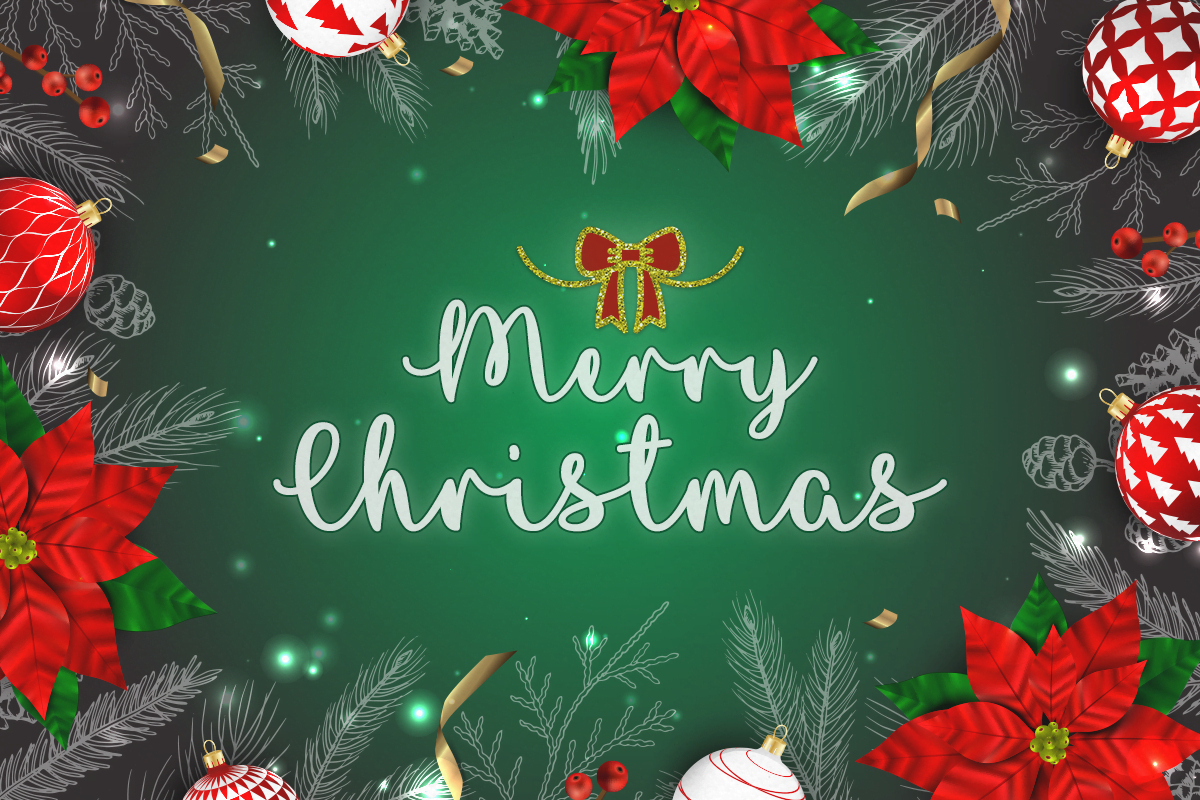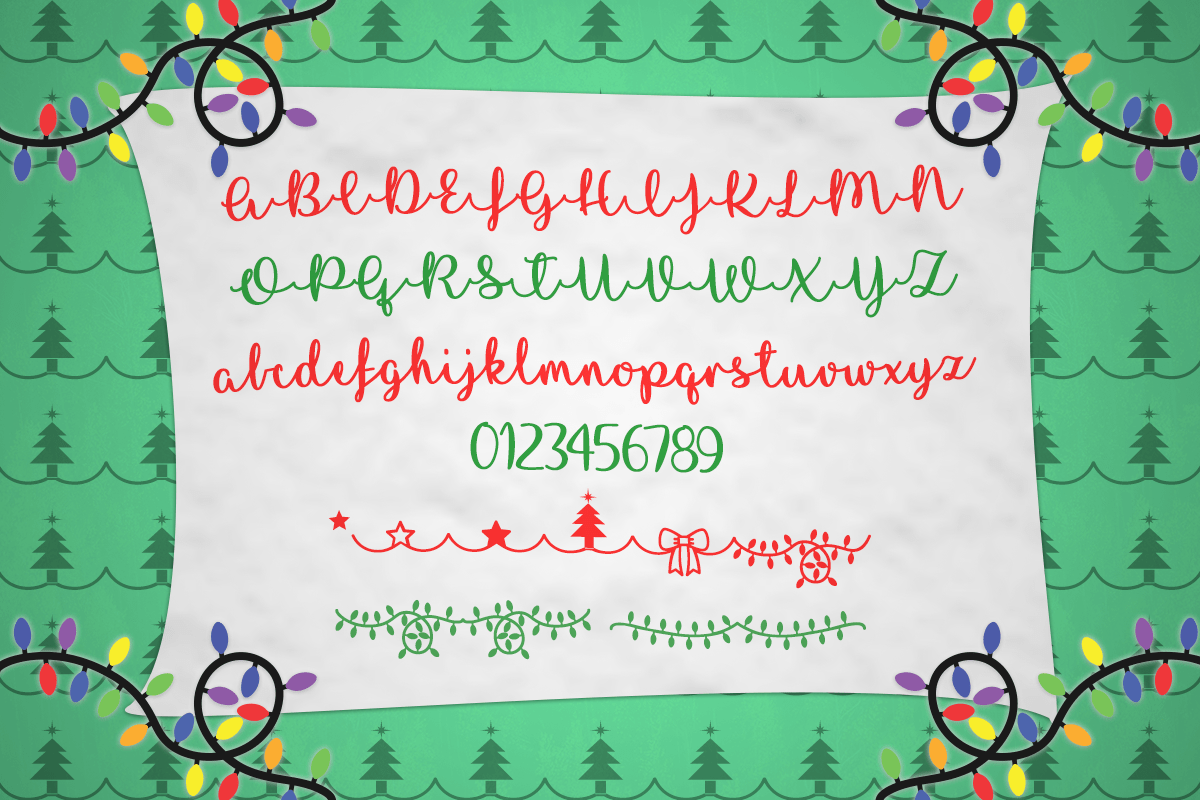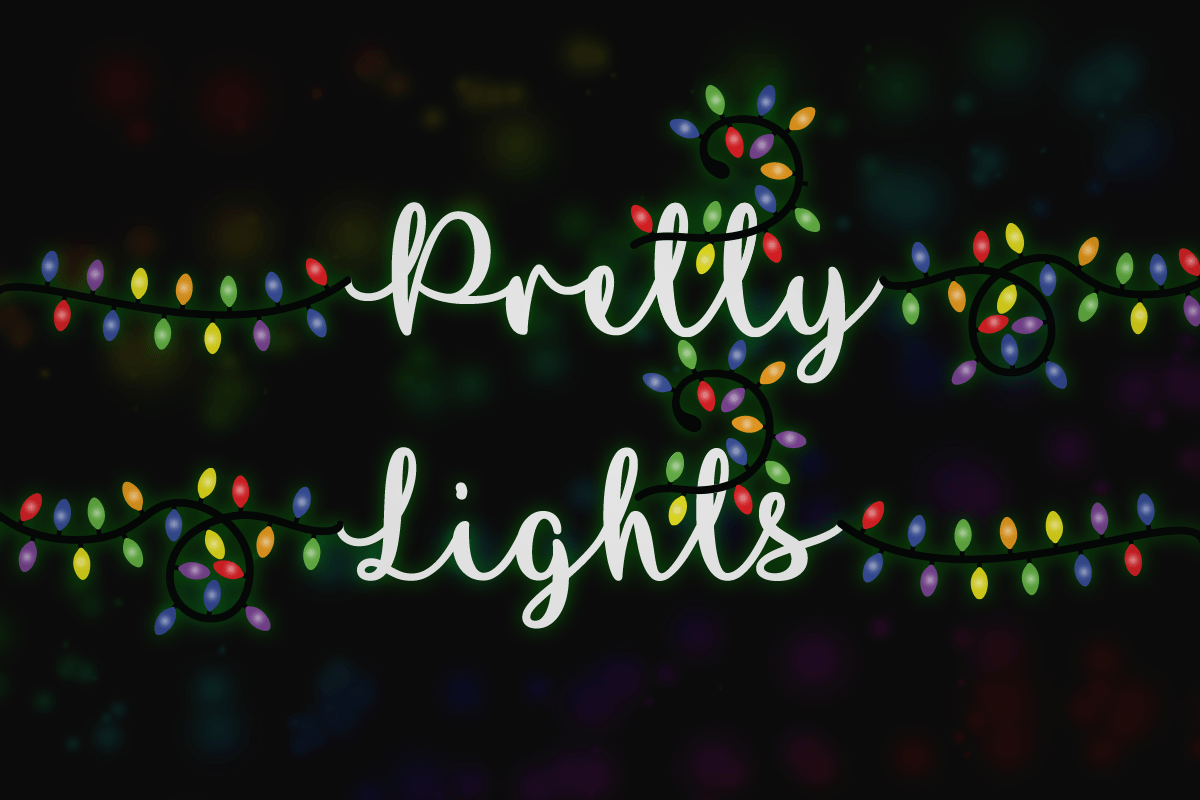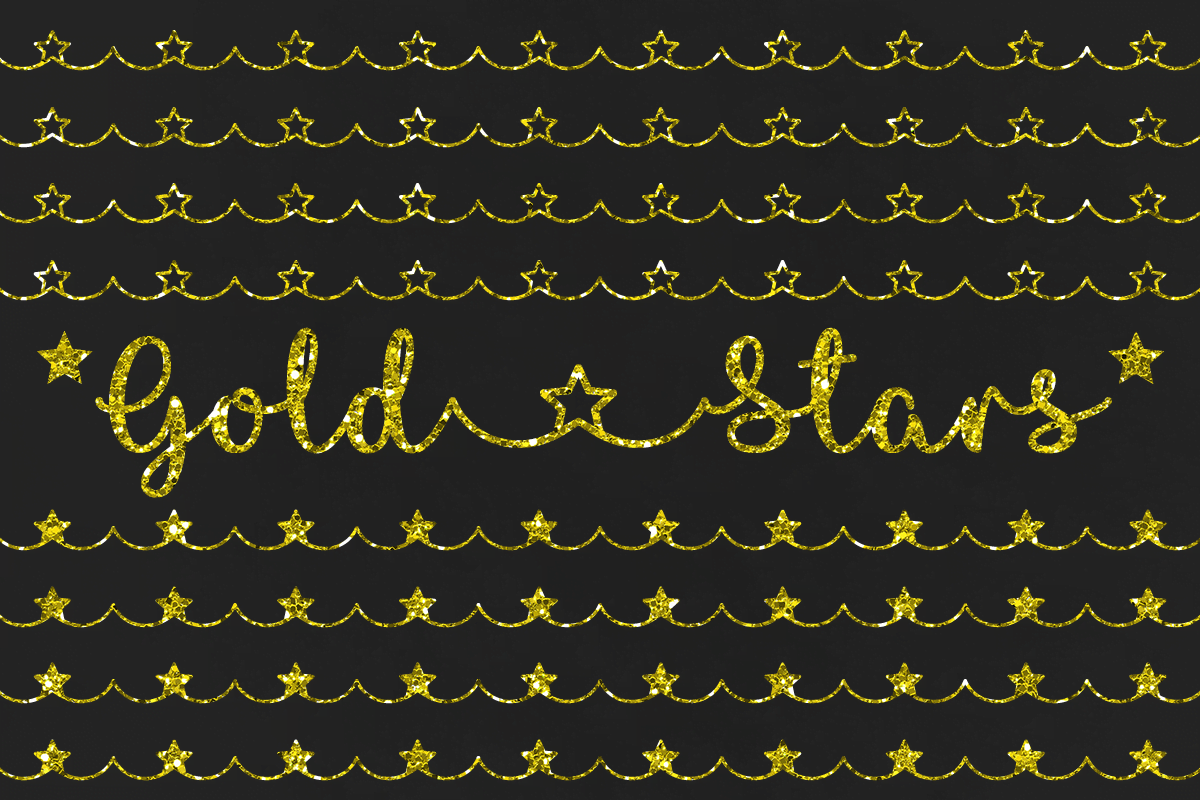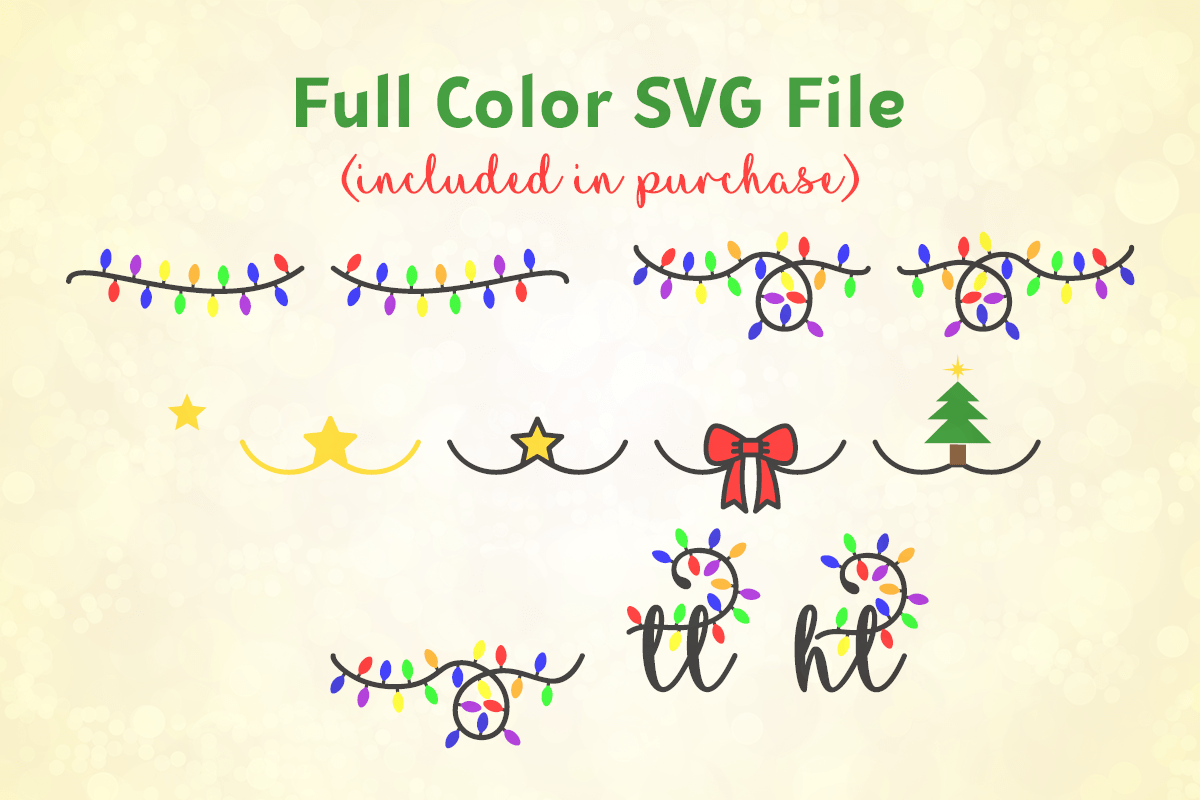
I Love Glittermas
I Love Glittermas is a spectacular handwritten font with cute festive elements. This font has a Christmas Holiday theme. Use it to make your ideas even more realistic and create spectacular designs!